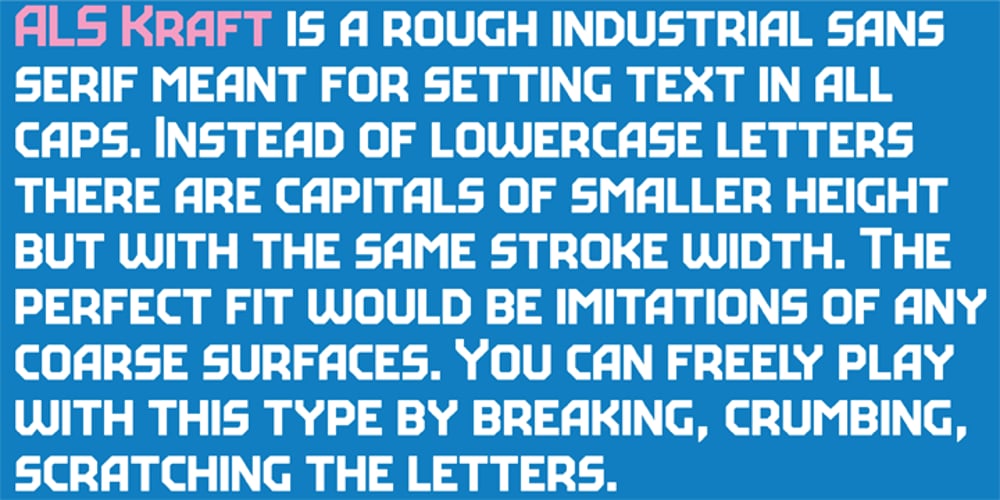
ALS Kraft Font Family was designed by Irina Smirnova and published by Art. Lebedev Studio. ALS Kraft contains 1 styles and family package options. A simple rough font. Kraft is a rough techno-style sans serif meant for setting text in all capitals. Instead of lowercase letters there are capitals of smaller height but with the same stroke width. They make tighter type. Characters are pressed really close together which creates the visual rhythm of very narrow and very wide openings. The wide strokes allow free use of graphics. This font is designed for putting on coarse surfaces, for breaking, crumbing, scratching, or making stencils on concrete.